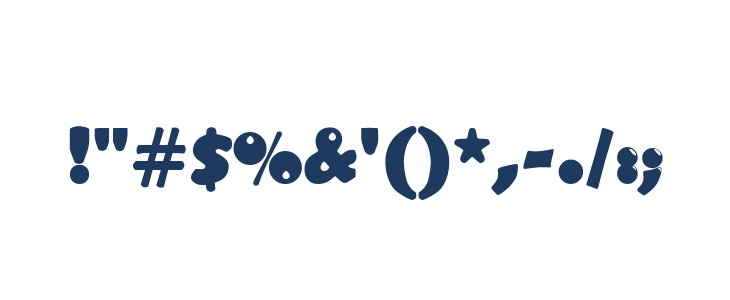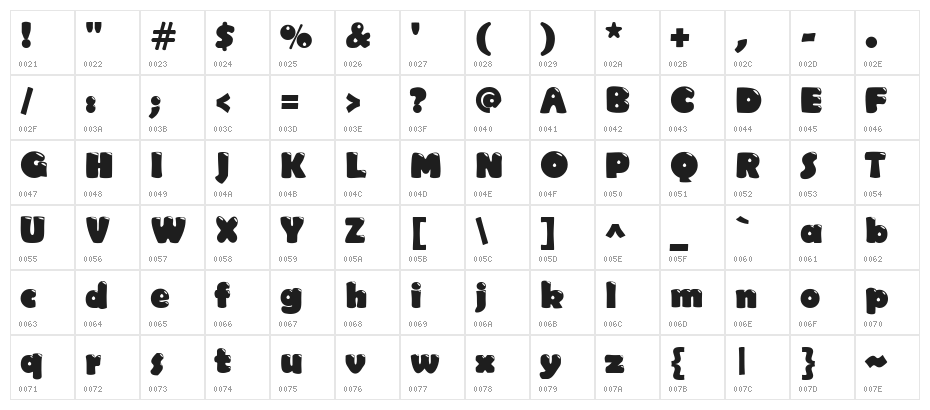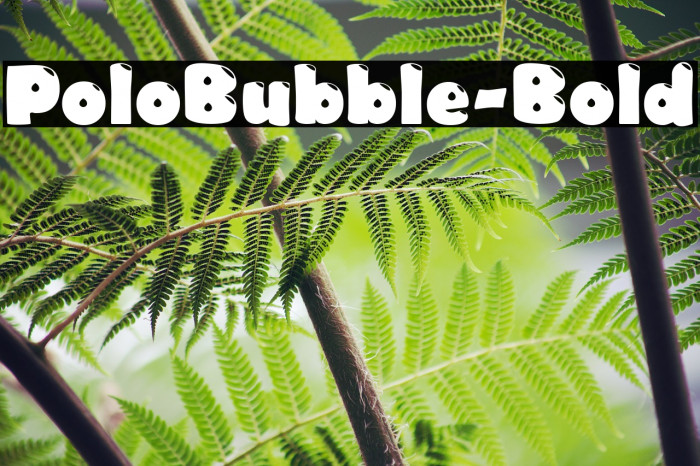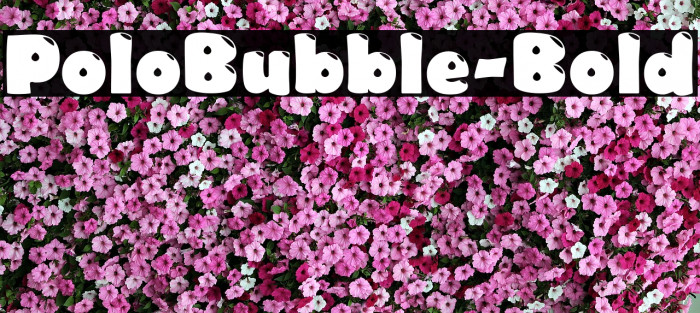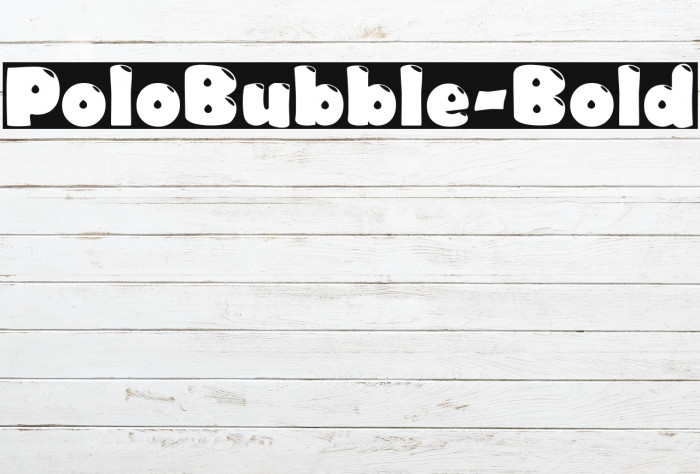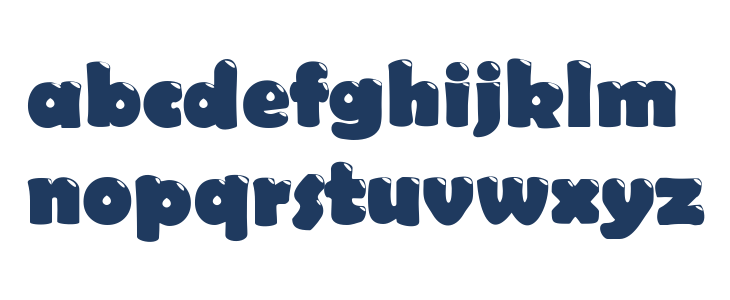
PoloBubble-Bold Font
This playful and bold font features a bubbly, rounded design that exudes a sense of fun and whimsy. The characters are thick and substantial, with a three-dimensional appearance that adds depth and interest. The rounded edges and soft curves give it a friendly and approachable feel, making it ideal for projects that require a touch of humor or lightheartedness. The font's unique style is characterized by its exaggerated proportions and playful aesthetic, making it stand out in any design context.
| Proposed Projects | Perfect for children's books, playful branding, party invitations, and any design needing a fun and whimsical touch. |